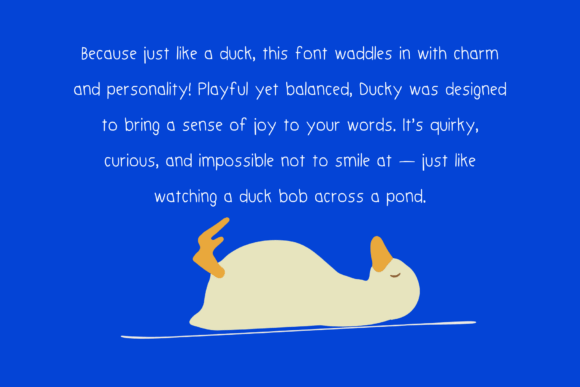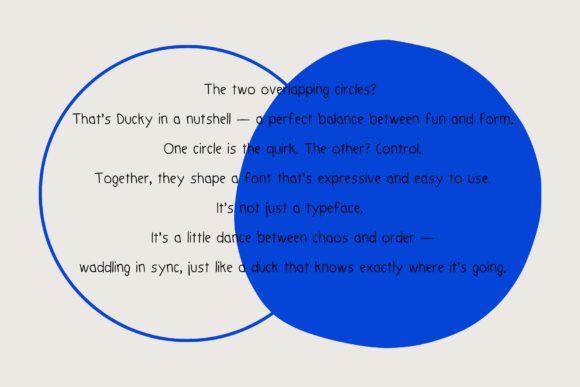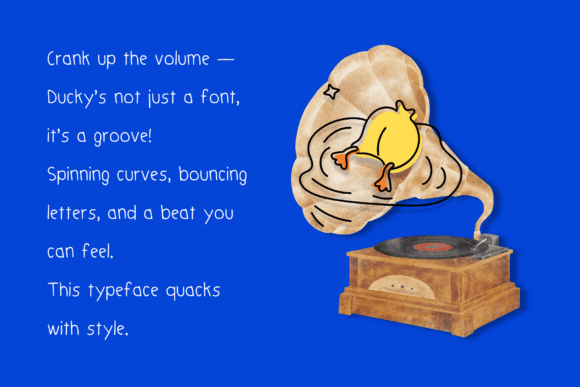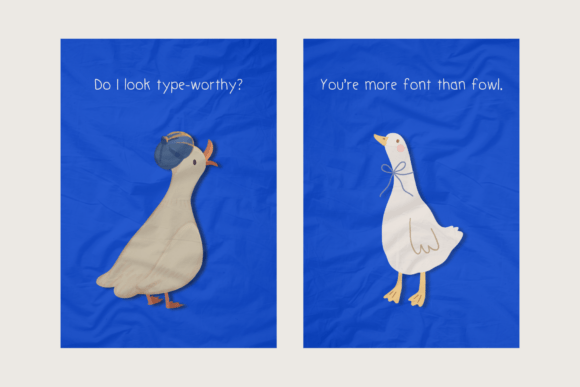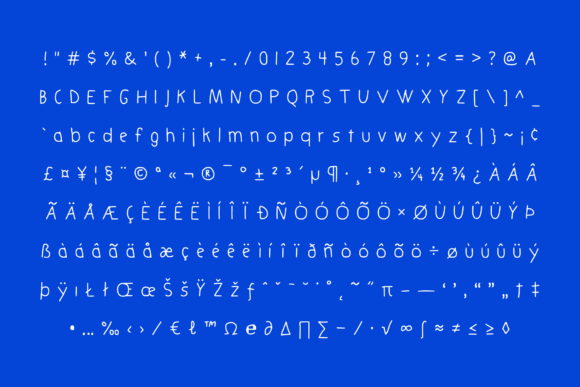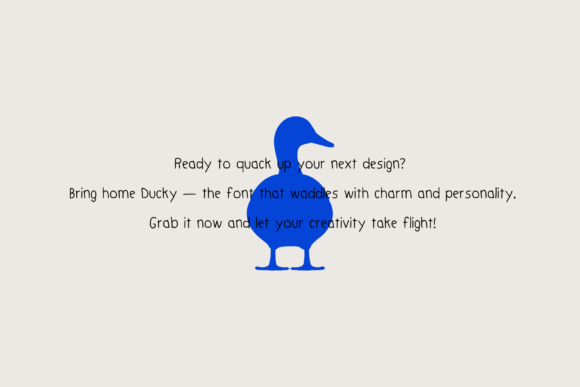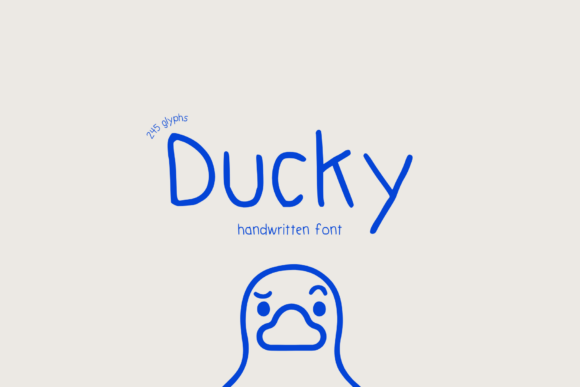
Meet Ducky Font: The Ultimate Playful Companion for Your Designs
Are you tired of using the same old fonts in your designs? Look no further! Introducing Ducky Font, a delightful, handwritten font that’s sure to bring a smile to your face. Inspired by the charm of little ducks, Ducky is the perfect addition to any design that needs a fun and friendly vibe.
What Makes Ducky Font So Special?
Ducky Font is a cute, playful handwritten font that’s full of personality. Its soft, quirky lines are reminiscent of the adorable features of little ducks, making it an ideal choice for kid-friendly designs, stickers, logos, branding, quotes, posters, and more. Whether you’re designing in Procreate, Canva, or any other design software, Ducky brings a touch of whimsy to your work.
Ideal Uses for Ducky Font
Ducky Font is versatile and can be used in a variety of projects, including:
- Kids and baby-themed projects: Create adorable nursery decor, baby shower invitations, or kids’ party materials with Ducky Font.
- Kawaii and aesthetic vibes: Add a touch of Japanese kawaii culture to your designs with Ducky Font’s playful and quirky style.
- Fun logos and branding: Use Ducky Font to create a memorable and fun logo for your business or brand.
- Journals, planners, and scrapbooking: Add a personal touch to your journals, planners, and scrapbooking projects with Ducky Font.
- Social media content: Make your social media posts stand out with Ducky Font’s playful and eye-catching style.
- Invitations and more: Use Ducky Font to create fun and festive invitations for parties, events, or special occasions.
Why Designers and Crafters Love Ducky Font
Ducky Font is a favorite among designers and crafters for several reasons:
- Easy to read: Despite its playful style, Ducky Font is easy to read, making it perfect for use in a variety of projects.
- Versatile: Ducky Font can be used in a range of projects, from digital designs to print materials.
- Fun and engaging: Ducky Font adds a touch of whimsy and fun to any design, making it perfect for projects that need a playful vibe.
Tips for Using Ducky Font in Your Designs
Here are some tips for getting the most out of Ducky Font:
- Experiment with colors: Ducky Font looks great in a range of colors, so don’t be afraid to experiment and find the perfect hue for your design.
- Mix and match: Combine Ducky Font with other fonts or graphics to create a unique and eye-catching design.
- Keep it simple: Don’t overcomplicate your design – Ducky Font is perfect for simple, yet effective designs.
Ducky Font is a delightful, playful handwritten font that’s perfect for designers and crafters looking to add a touch of whimsy to their work. With its soft, quirky lines and cute, duck-inspired design, Ducky Font is ideal for kid-friendly designs, stickers, logos, branding, quotes, posters, and more. So why not give Ducky Font a try and see how it can bring a smile to your face and a touch of fun to your designs?
Get Ready to Quack with Joy!